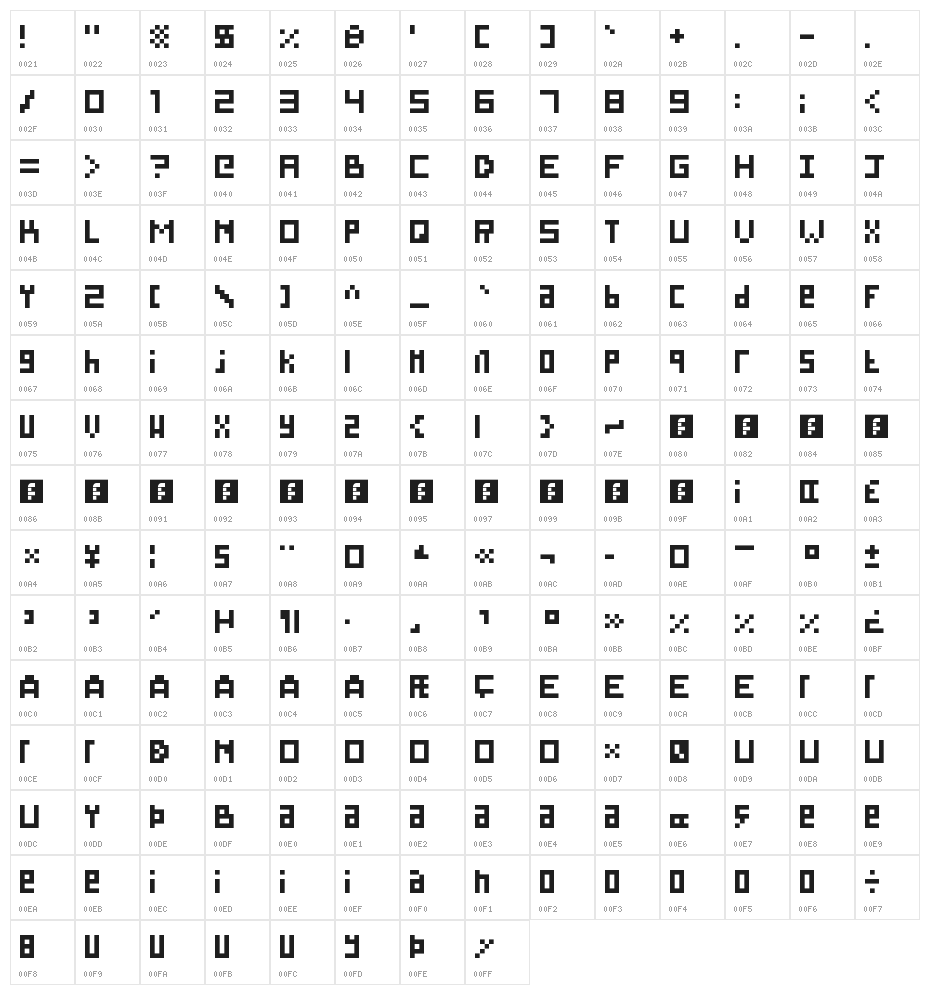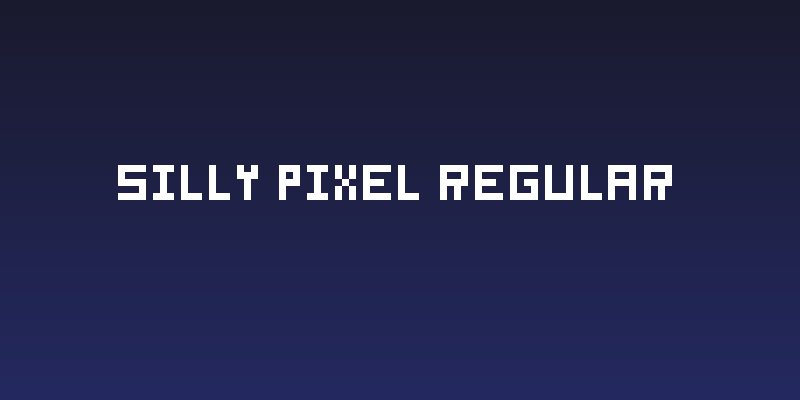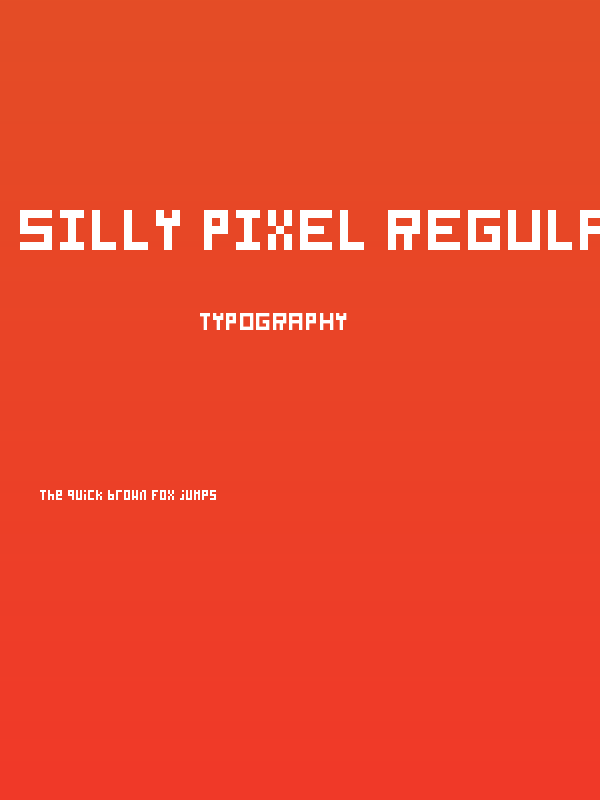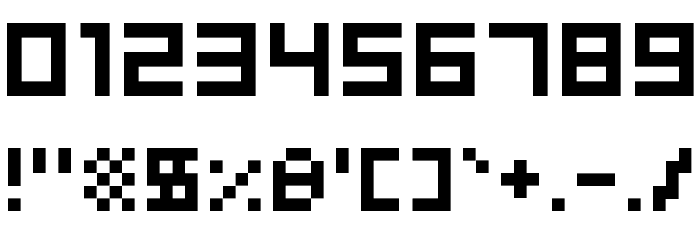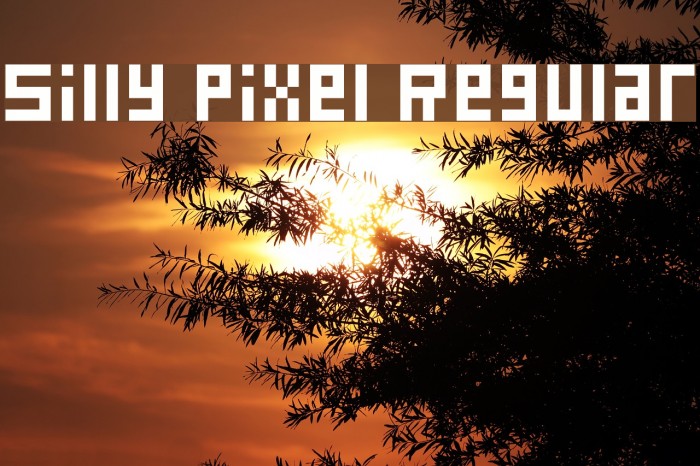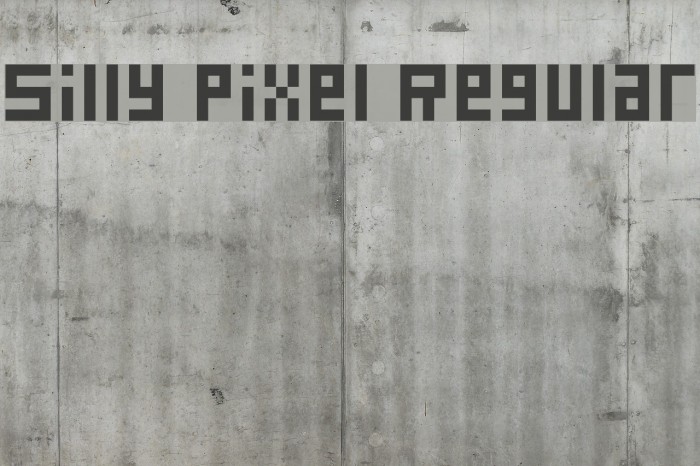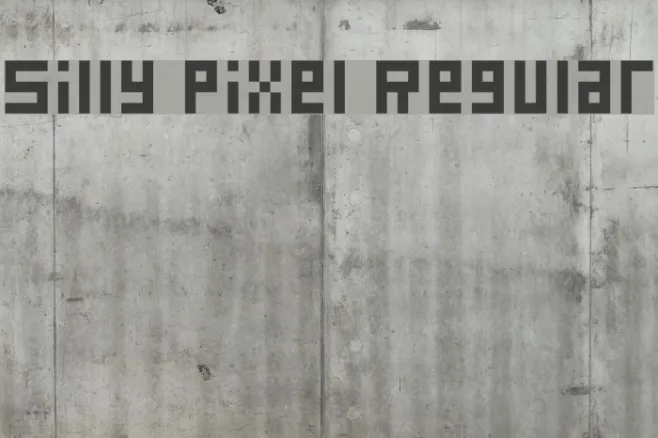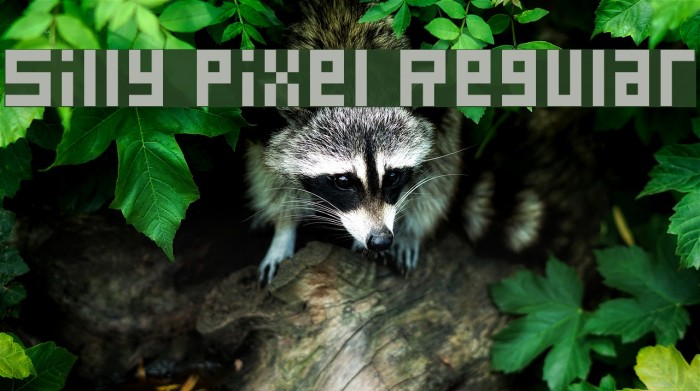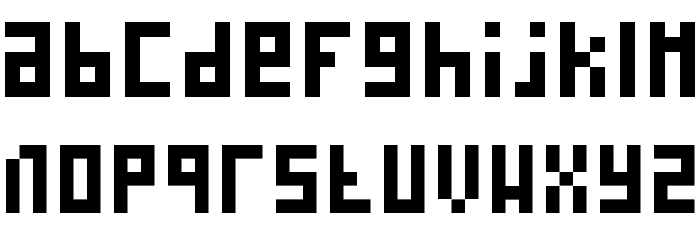
Silly Pixel Regular Font
Silly Pixel Regular Description
This font features a distinct pixelated style, reminiscent of early digital displays and retro video games. Each character is constructed with a grid-like precision, giving it a blocky and geometric appearance. The uppercase and lowercase letters maintain a consistent height, contributing to a uniform look across the text. Numbers and special characters follow the same pixelated design, ensuring a cohesive visual experience. The font's simplicity and clarity make it highly legible, even at smaller sizes, while its nostalgic aesthetic evokes a sense of playfulness and creativity.
| Overall Style | Retro |
| Use Case | Logos, Headlines, Digital Art |
| Proposed Projects | Ideal for retro-themed video games, digital art projects, and nostalgic branding designs. |